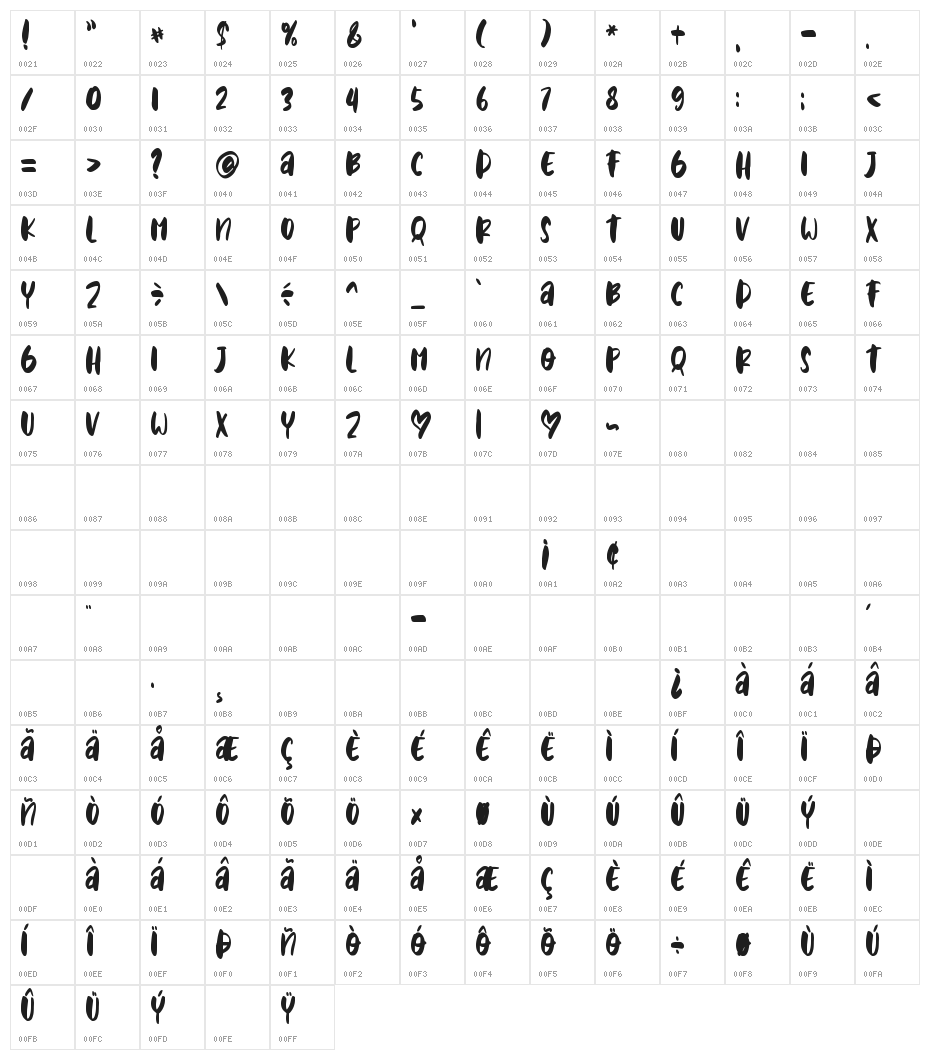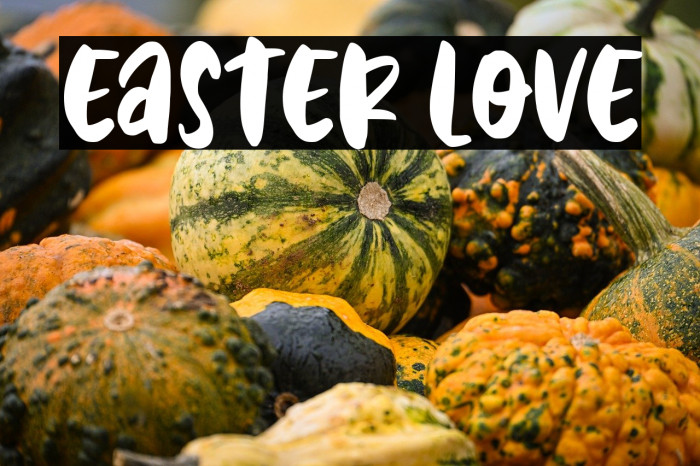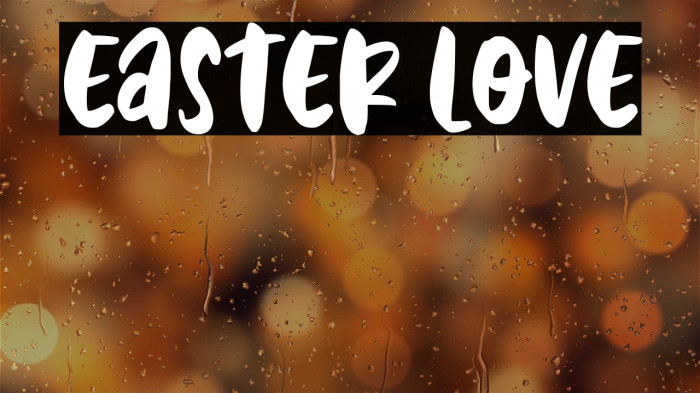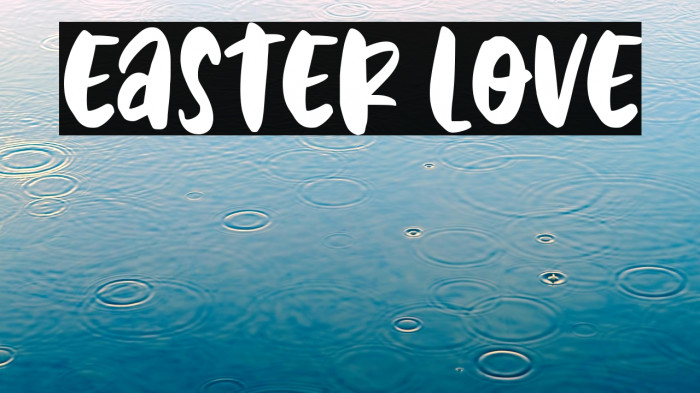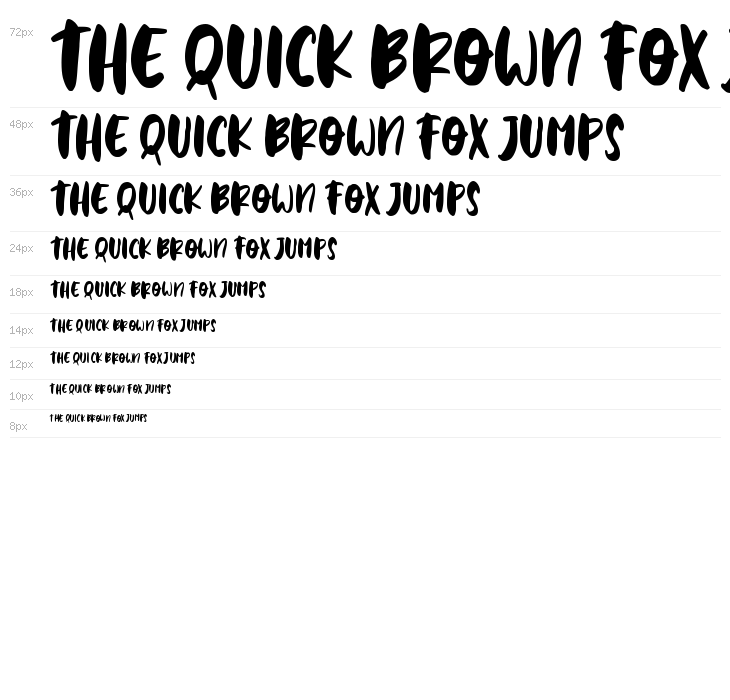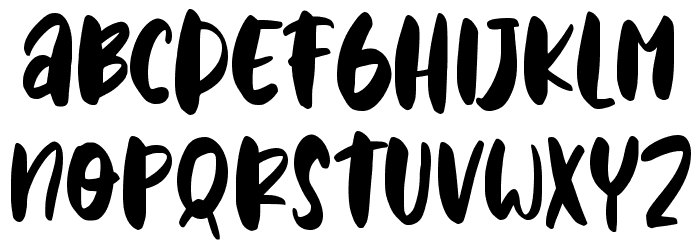
Easter Love Font
Easter Love Description
This font features a bold and playful handwritten style, characterized by its thick, brush-like strokes and slightly irregular letterforms. The letters have a lively and dynamic appearance, with a sense of movement that adds a whimsical touch. The uppercase and lowercase letters maintain a consistent style, while the numbers and special characters are crafted to match the overall aesthetic. The font's boldness makes it stand out, making it suitable for eye-catching designs. Its informal and friendly vibe is perfect for creative projects that require a personal touch.